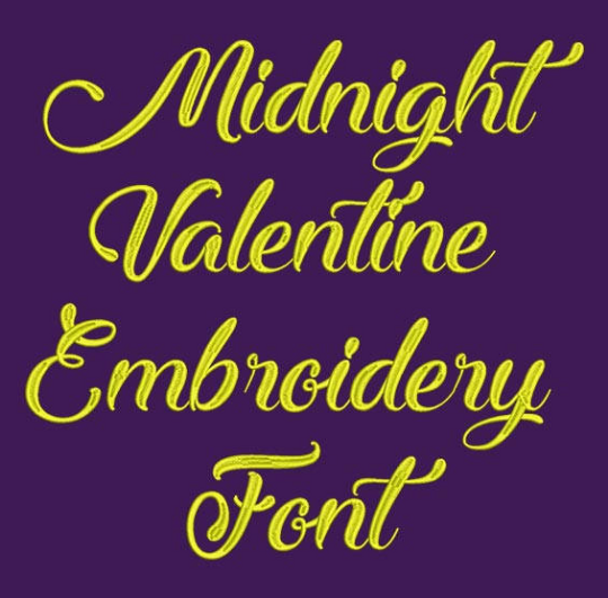
Midnight valentine font
Title: Midnight Valentine Machine Embroidery Font
This Midnight Valentine font is perfect for personalizing clothes, bags, towels and linens!